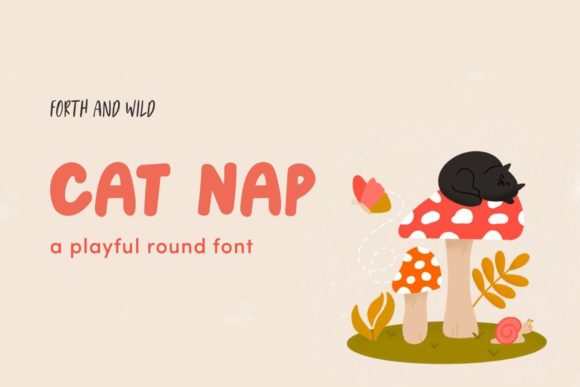
Prepare to ignite your design passion with Cat Nap Font, a whimsical and audacious display font that adds a touch of playfulness to any project. Picture this: a charming fusion of round curves and bold lines dancing across your web designs, logos, Instagram quotes, and social media posts. Cat Nap's charismatic personality shines through with every character, engaging your audience and leaving a lasting impression.
Unleash your inner artist and let Cat Nap's handwritten uppercase letters, coupled with a dash of simplicity and boldness, take your creative vision to new heights. This extraordinary font invites you to explore the realm of unique storytelling, making every word you craft a captivating adventure.
More than just a font, Cat Nap is a story waiting to unfold. It's an expression of boundless imagination and individuality, mirroring the spirit of those who dare to stand out and make their mark. Tap into the allure of Cat Nap and watch your designs bloom with personality and charm.
But there's a catch – Cat Nap's limited punctuation and symbols add an air of exclusivity, making each composition a bespoke masterpiece. It's a thoughtful touch that encourages designers to embrace their creative freedom and explore unconventional approaches to design.
With Cat Nap by your side, you'll discover a world of endless possibilities. From playful logos that captivate attention to Instagram quotes that resonate with your followers, this font ignites a spark of creativity that will leave your audience enthralled.
Step into the world of Cat Nap Font and unlock the gate to boundless design adventures. Embrace its playful spirit, let your imagination soar, and create designs that speak volumes. Cat Nap is more than just a font – it's an experience that will transform your creative journey.